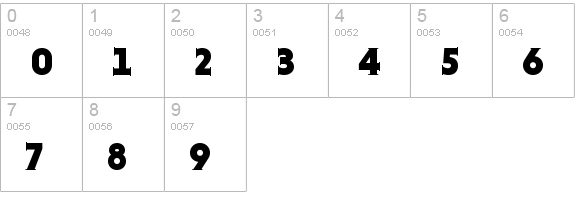
Niveau Serif Black Small Caps Font Details
Niveau Serif Black Small Caps is a maximum-weight, dramatic variant in the Niveau typeface family \xE2\x80\x94 well suited to maximum-impact headlines, posters, and packaging.
Niveau Serif Black Small Caps font is a timeless and elegant typeface that exudes sophistication and professionalism. With its bold and commanding presence, this font is perfect for creating striking headlines and eye-catching designs. The small caps add a touch of refinement, making it ideal for editorial layouts and branding projects. What sets Niveau Serif Black Small Caps font apart is not only its stunning aesthetics but also its accessibility. This premium font is available for free download at FontsMarket.com, allowing designers and creatives to elevate their projects without breaking the bank. Whether you're working on a print publication, website design, or any other creative endeavor, Niveau Serif Black Small Caps font is sure to make a lasting impression. Unlock the power of this versatile and stylish typeface today and take your designs to the next level.